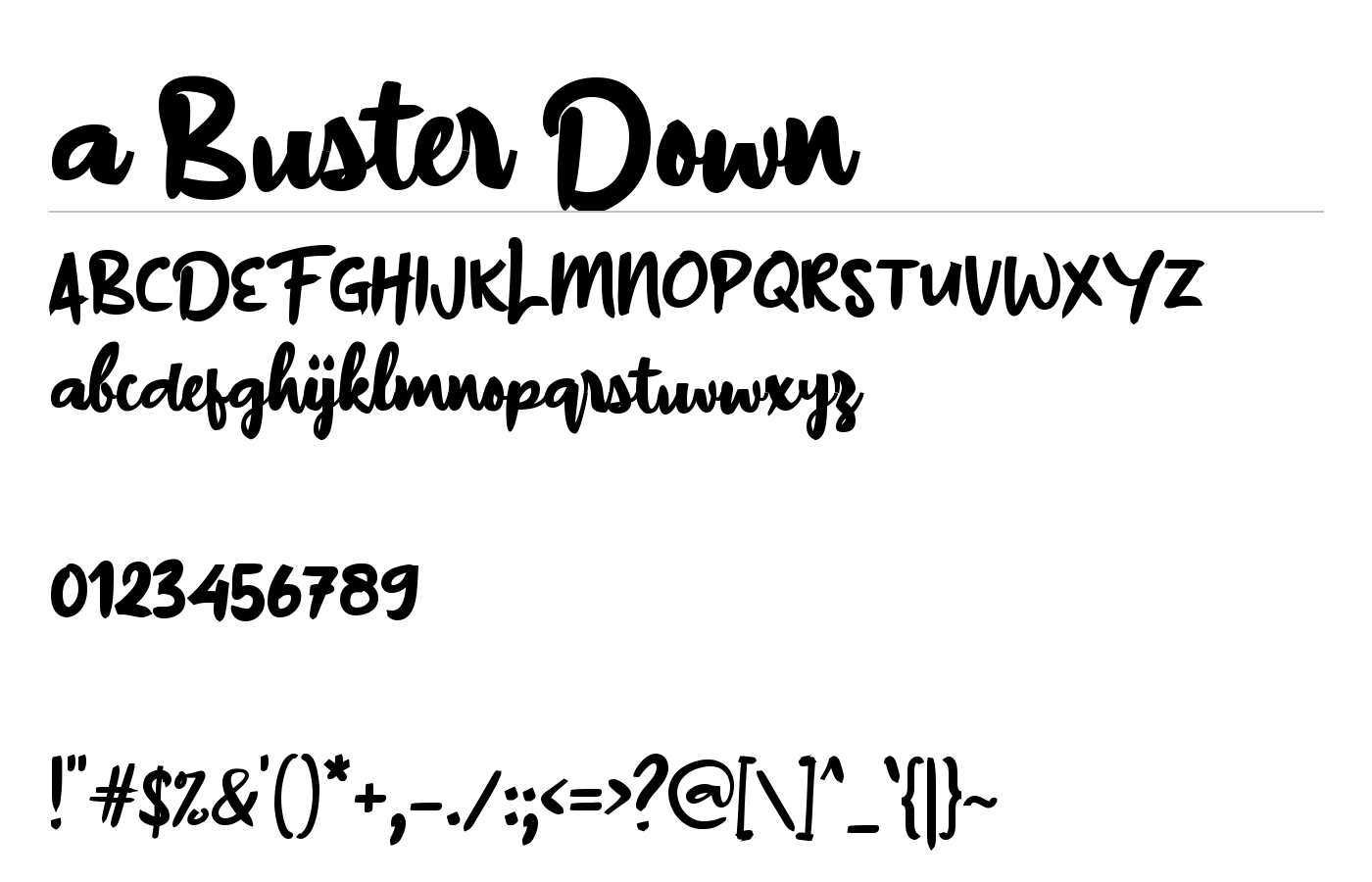
A Buster Down is a playful, casual handwritten font with a bold weight and lively brush stroke style that feels friendly and approachable. It features a dynamic mix of thick and slightly rounded strokes with a strong, energetic personality perfect for creative projects, logos, posters, and informal branding. This font works well when you want to add a personal, fun touch with clear readability in both uppercase and lowercase letters.
a Buster Down Font
About a Buster Down Font